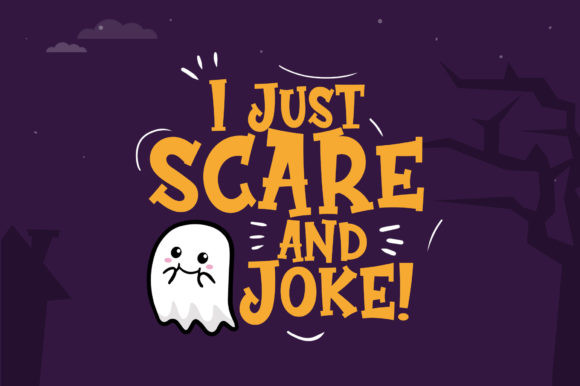
How to Choose Creepy Alphabet Fonts for Halloween Projects
Creepy alphabet fonts can turn a basic Halloween phrase into the main visual of a poster, shirt, party sign, or treat-bag design. I looked for letter styles with enough personality to feel eerie at first glance, while still keeping the alphabet recognizable when words are viewed from across a room or reduced for smaller crafts.
My picks range from dripping horror letters and mummy-wrapped characters to cobweb fonts, crooked storybook alphabets, ghostly display faces, and playful monster lettering.
The best creepy alphabet fonts combine a distinctive Halloween silhouette with readable letterforms. For posters and large signs, I would start with Creepyon, Drippy Message, Halloween Party, or The Nightmare. For kid-friendly crafts, Scary Halloween Trio, Cute Ghost, Hellaween, and The Funny Ghost offer a softer spooky look.
How I Picked These
I compared these options by how well they fit the articleโs intended use, including readability, visual character, practical versatility, distinctive features, and how clearly each choice differs from the rest of the roundup. I prioritized options that solve a specific design need rather than simply adding more similar-looking products.
Best Creepy Alphabet Fonts for Halloween Crafts
1. Halloween
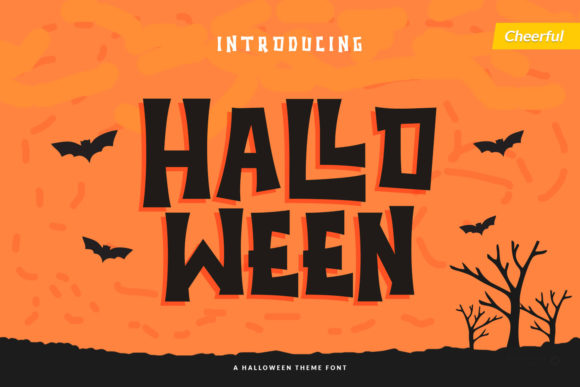
Halloween is a decorative display alphabet for colorful party graphics, classroom printables, and seasonal headlines that need an illustrated feel. Its character shapes carry much of the theme, so a short word can become the centerpiece without extra ornaments.
I would use it for posters, treat-bag labels, or large shirt graphics rather than long copy. Detailed letters can become visually crowded when reduced, while the simpler black treatment should be more practical for cutting-machine projects.
Best for: party posters, classroom printables, colorful apparel
Key features: decorative characters, color and black treatments, bold seasonal silhouette
2. Hellaween
Hellaween is a chunky slab-serif alphabet for friendly Halloween headlines that need strong visibility without looking genuinely frightening. Its rounded, cartoon-like construction suits family events, school crafts, and playful October merchandise.
My favorite use would be a short phrase on a banner or sweatshirt because the broad letterforms should remain readable from a distance. The mood is more mischievous than sinister, so I would skip it for serious horror branding.
How do I make a Halloween font look bold without becoming hard to read?
u003cstrongu003eUse high contrast, generous spacing, and fewer decorative effects around the lettering.u003c/strongu003e A creepy font already contains visual texture, so a simple background and one clear outline or shadow are usually enough to make it feel bold. Avoid layering drips, distressed textures, glow, multiple strokes, and busy clipart behind the same title. Enlarge the type, shorten the wording, and give unusual letter shapes enough room to remain distinct.